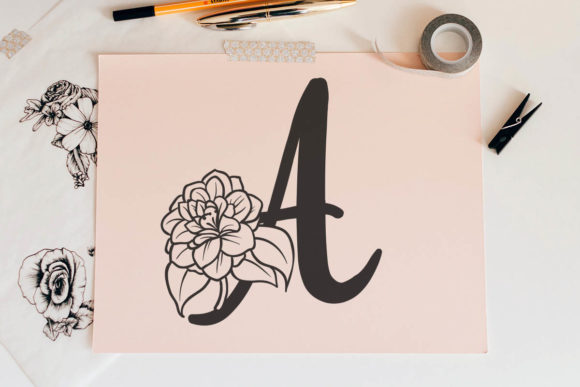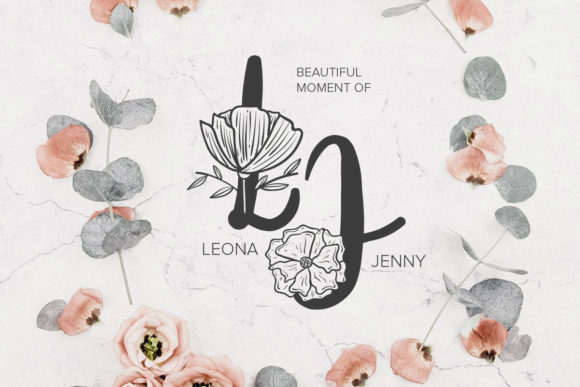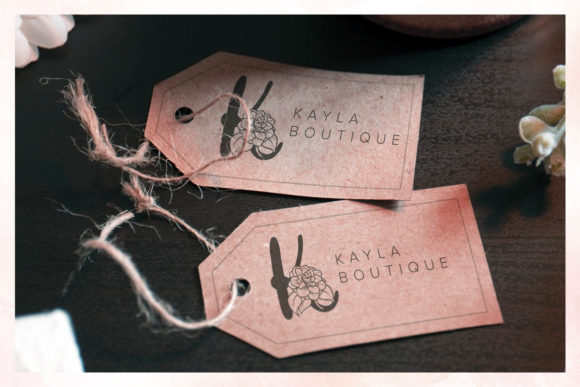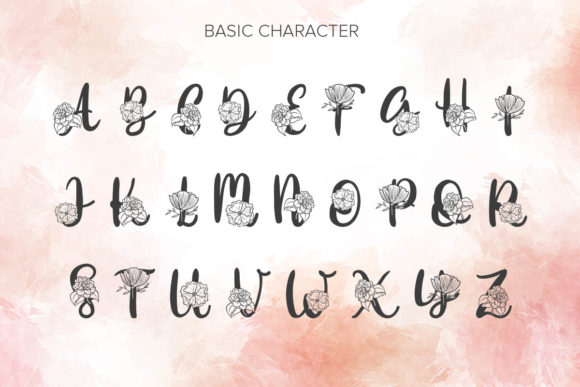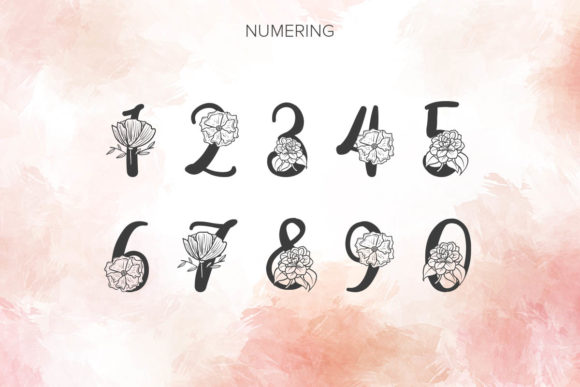
Introducing Gloria Monogram Font: The Perfect Choice for Elegant Designs
Are you a designer or crafter looking for a unique and beautiful font to elevate your creative projects? Look no further than Gloria Monogram Font, a stunning monogram font that features flower-themed characters. With its authentic feel and versatility, Gloria Monogram is the perfect choice for creating gorgeous wedding invitations, beautiful stationary art, eye-catching social media posts, and cute greeting cards.
What Makes Gloria Monogram Font So Special?
Gloria Monogram Font is a one-of-a-kind font that stands out from the rest due to its beautiful flower-themed characters. Each letter is carefully designed to resemble a delicate flower, making it perfect for spring and summer designs. The font’s authentic feel gives it a vintage touch that’s sure to captivate your audience. Whether you’re creating wedding invitations, party decorations, or social media graphics, Gloria Monogram Font is sure to add a touch of elegance and sophistication.
Uses for Gloria Monogram Font
Gloria Monogram Font is incredibly versatile and can be used for a wide range of design projects. Here are some ideas to get you started:
- Wedding Invitations: Create beautiful and elegant wedding invitations that set the tone for the big day. Use Gloria Monogram Font to add a personal touch to your wedding stationery.
- Stationary Art: Add a touch of whimsy to your stationary art with Gloria Monogram Font. Perfect for creating gorgeous notebooks, journals, and greeting cards.
- Social Media Posts: Make your social media posts stand out with Gloria Monogram Font. Use it to create eye-catching graphics, quotes, and announcements.
- Greeting Cards: Create cute and personalized greeting cards for special occasions such as birthdays, anniversaries, and holidays.
Why Designers and Crafters Love Gloria Monogram Font
Gloria Monogram Font has quickly become a favorite among designers and crafters due to its unique and elegant design. Here are some reasons why:
- Unique Design: Gloria Monogram Font features beautiful flower-themed characters that are sure to make your designs stand out.
- Elegant and Sophisticated: The font’s authentic feel gives it a vintage touch that’s perfect for creating elegant and sophisticated designs.
- Versatile: Gloria Monogram Font can be used for a wide range of design projects, from wedding invitations to social media graphics.
Tips for Using Gloria Monogram Font
Here are some tips for using Gloria Monogram Font to create stunning designs:
- Pair with Other Fonts: Pair Gloria Monogram Font with other fonts to create a unique and interesting design.
- Use on Different Backgrounds: Use Gloria Monogram Font on different backgrounds to create a unique and eye-catching design.
Gloria Monogram Font is a beautiful and elegant font that’s perfect for designers and crafters looking to create stunning designs. With its unique flower-themed characters and authentic feel, Gloria Monogram Font is sure to add a touch of sophistication and elegance to any design project. Whether you’re creating wedding invitations, stationary art, social media posts, or greeting cards, Gloria Monogram Font is the perfect choice.